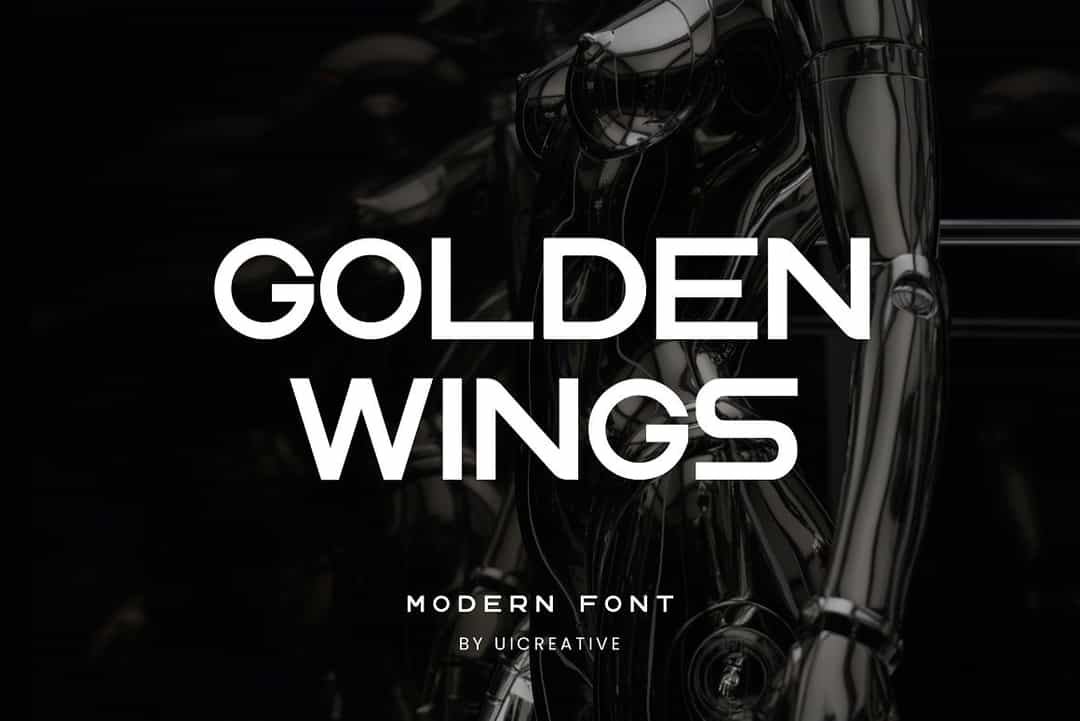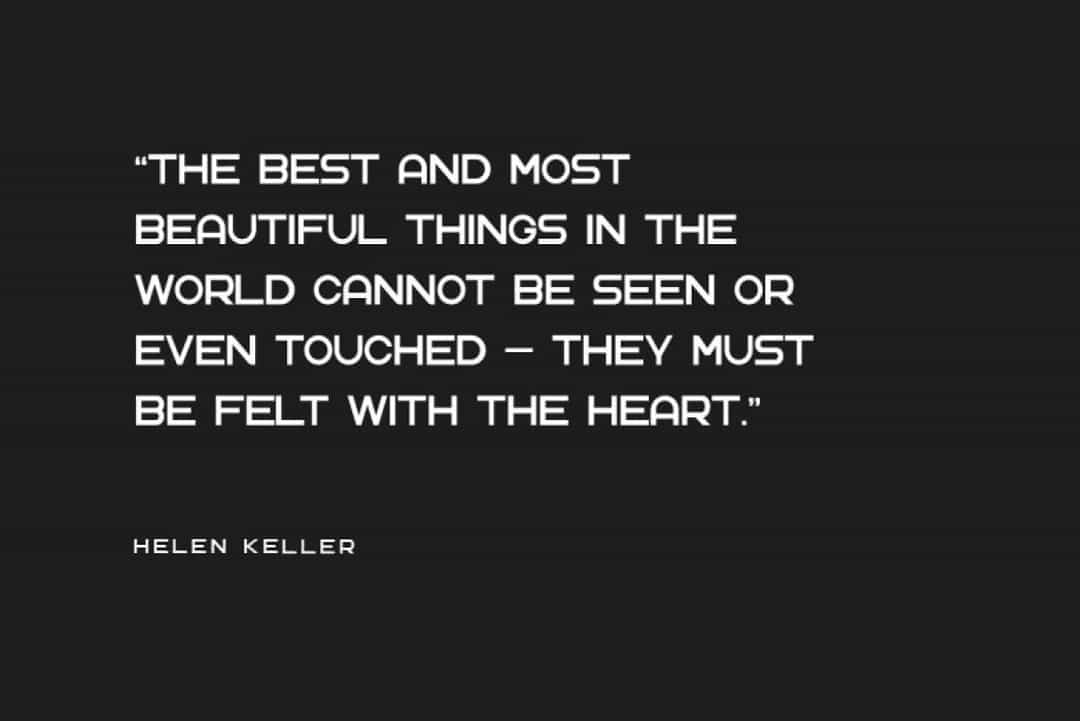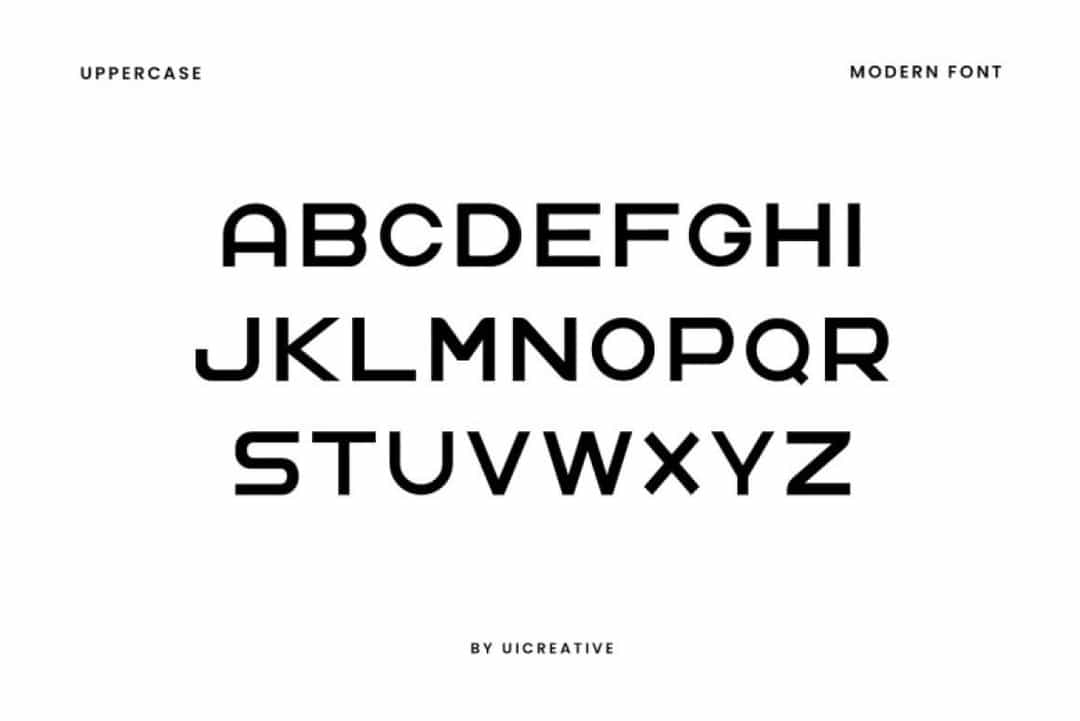
Golden Wings is an elegant, contemporary sans serif font that exudes beauty and contemporary. Perfect for many designs such as stationary, signature, wedding logo and signature sets; typography quote magazines/book covers or headers on websites as well as packaging design; clothing branding or anything requiring modern flair!